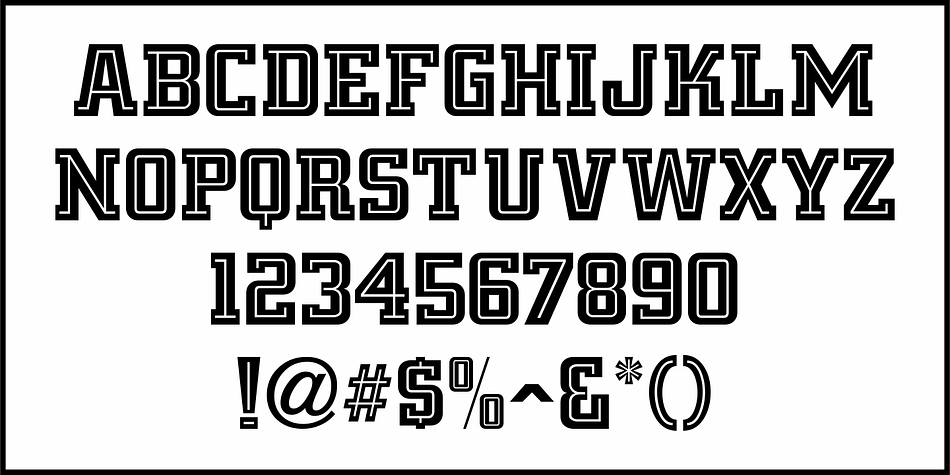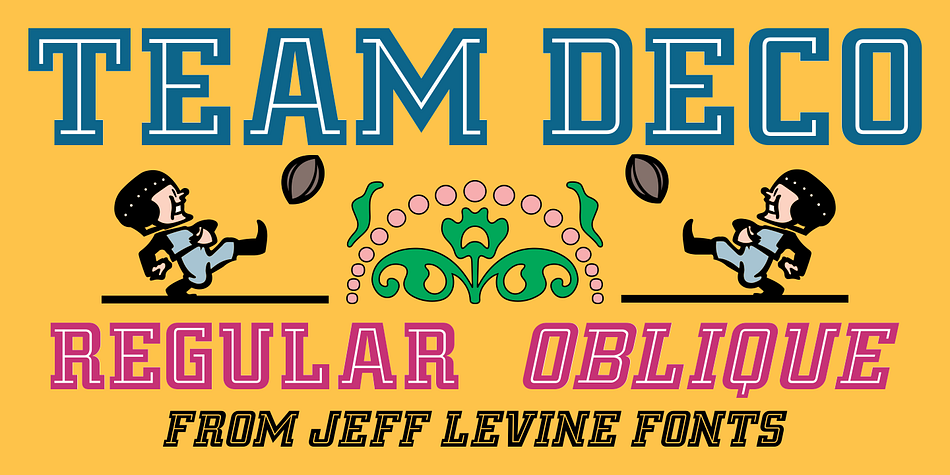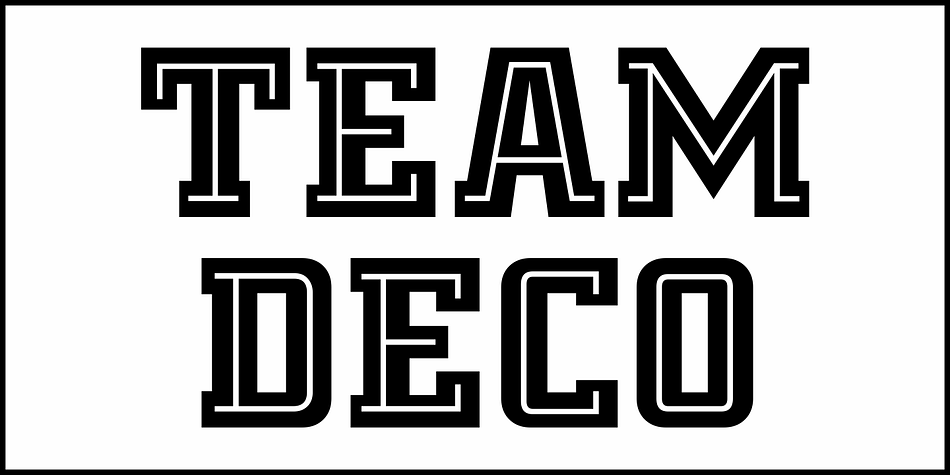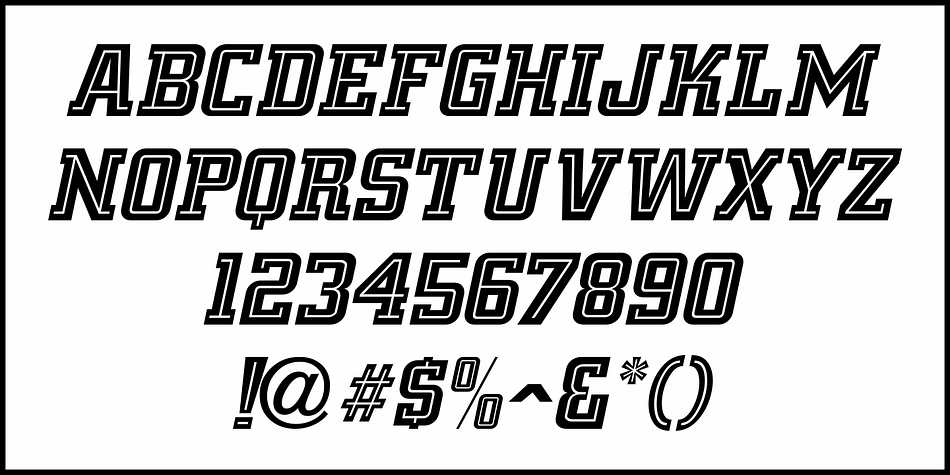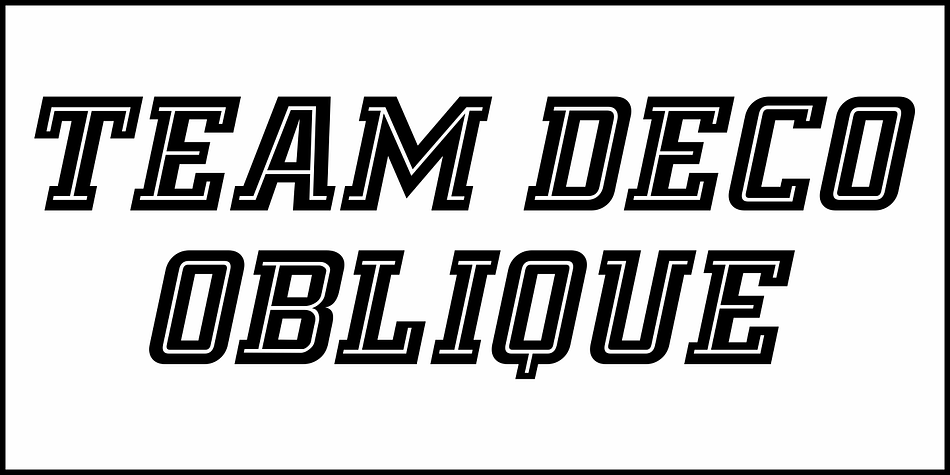
TEAM DECO JNL
Designed by Jeff Levine, Team Deco JNL is a slab serif font family. This typeface has two styles and was published by Jeff Levine Fonts.
In an online edition of Modern Screen Magazine for March of 1936, many of the article headlines were set in a bold, slab serif inline font which (although possessing some Art Deco traits) could double as a sports font.
This is now available as Team Deco JNL in both regular and oblique versions.